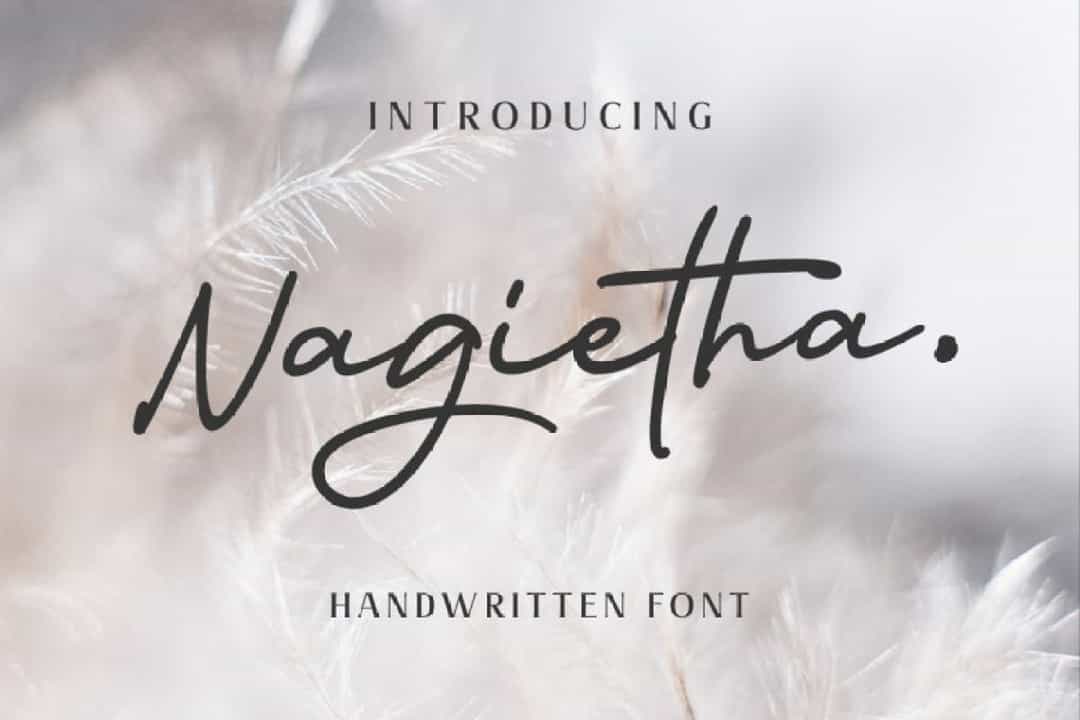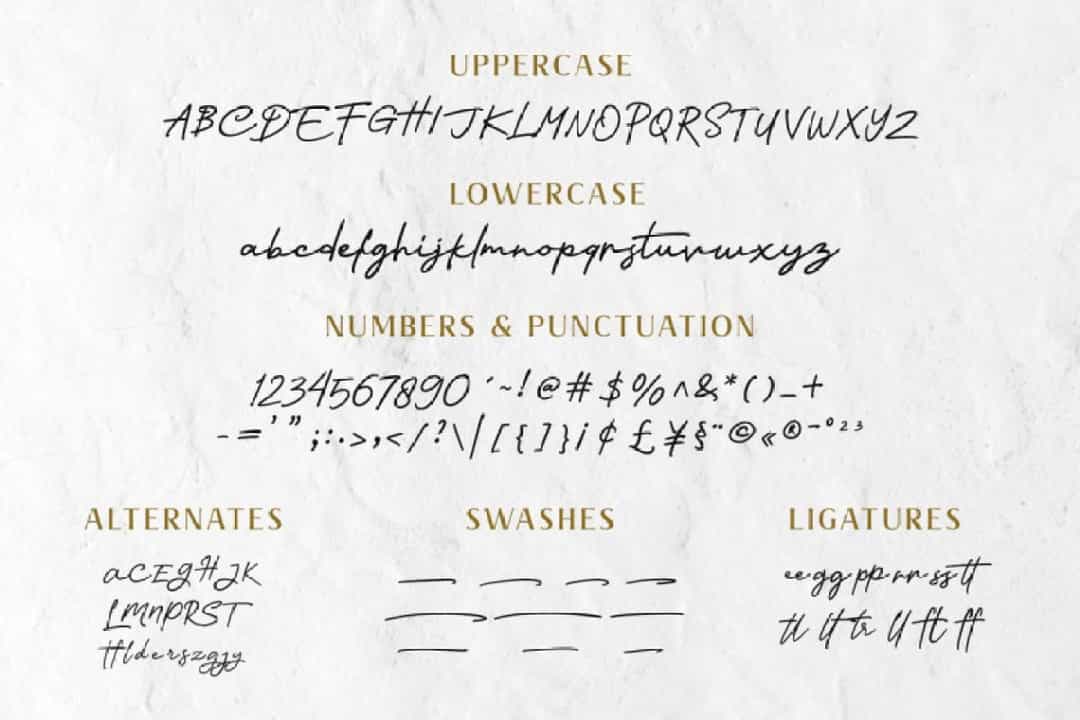
The typeface can be described as a handwritten one with organic feel to it. The font used for Nagietha is handwritten and this was drawn in such a way that it looks like real lines that a person would write for their significant other with individuality. To enhance the use of Nagietha font, it is recommended that you use it together with other font styles such as serif, sans-serif slab, italic slab etc.